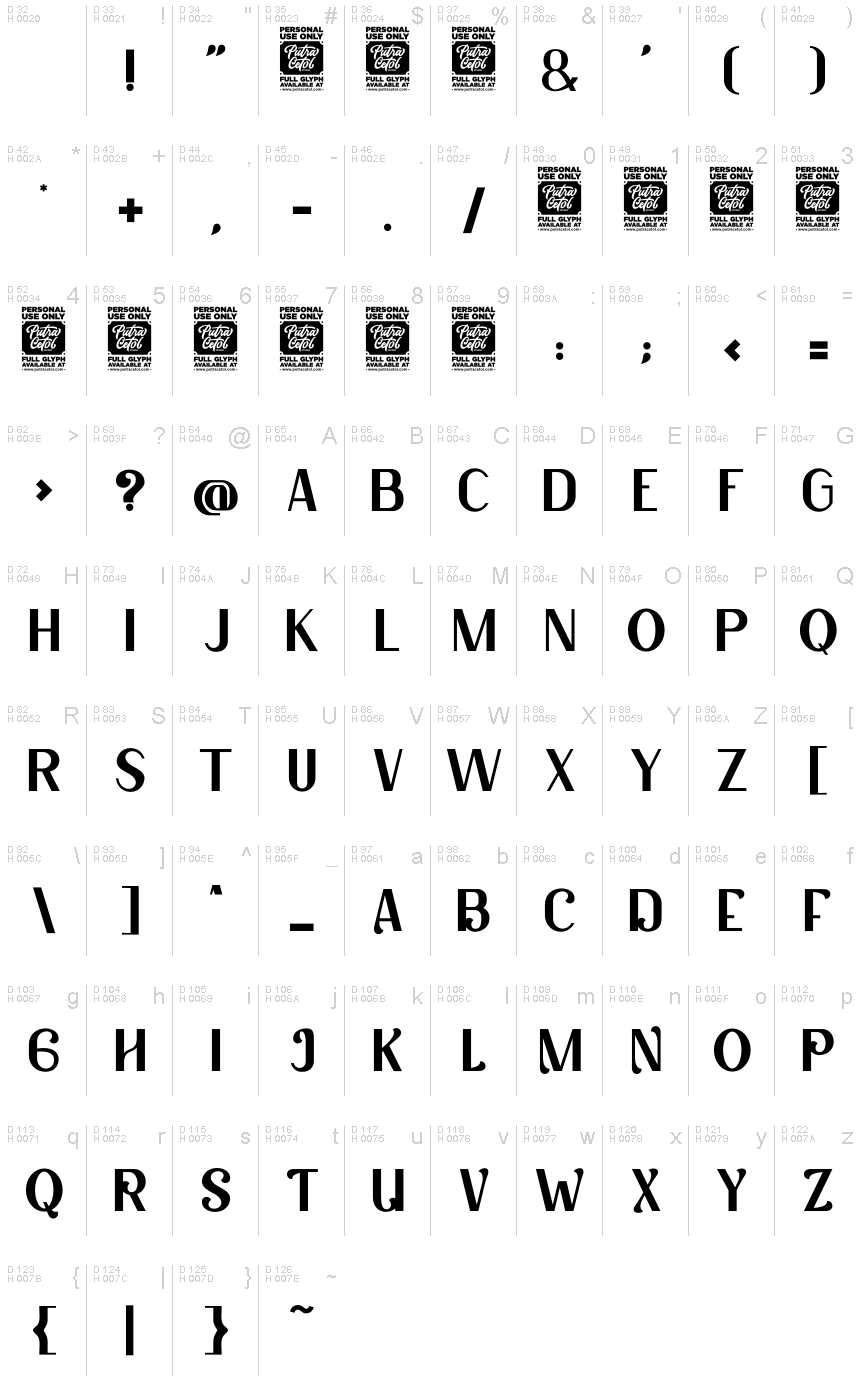
Dequency
Dequency, a captivating sans serif font crafted by PutraCetol Studio, exudes a captivating retro charm. Its bold, geometric letterforms and distinctive serifs create a striking visual impact, evoking a sense of timeless elegance and vintage allure. The font's sturdy construction and refined details make it a versatile choice for a wide range of design applications, from bold headlines and impactful logos to nostalgic branding and retro-inspired layouts.
Dequency's adaptable nature allows it to seamlessly integrate into various design contexts, from vintage-inspired editorial spreads to modern packaging designs. Its strong presence and legible structure make it an excellent choice for eye-catching titles, attention-grabbing signage, and immersive user interfaces. The font's unique character and vintage-inspired aesthetic can elevate the visual appeal of any project, lending a touch of timeless sophistication and engaging personality.